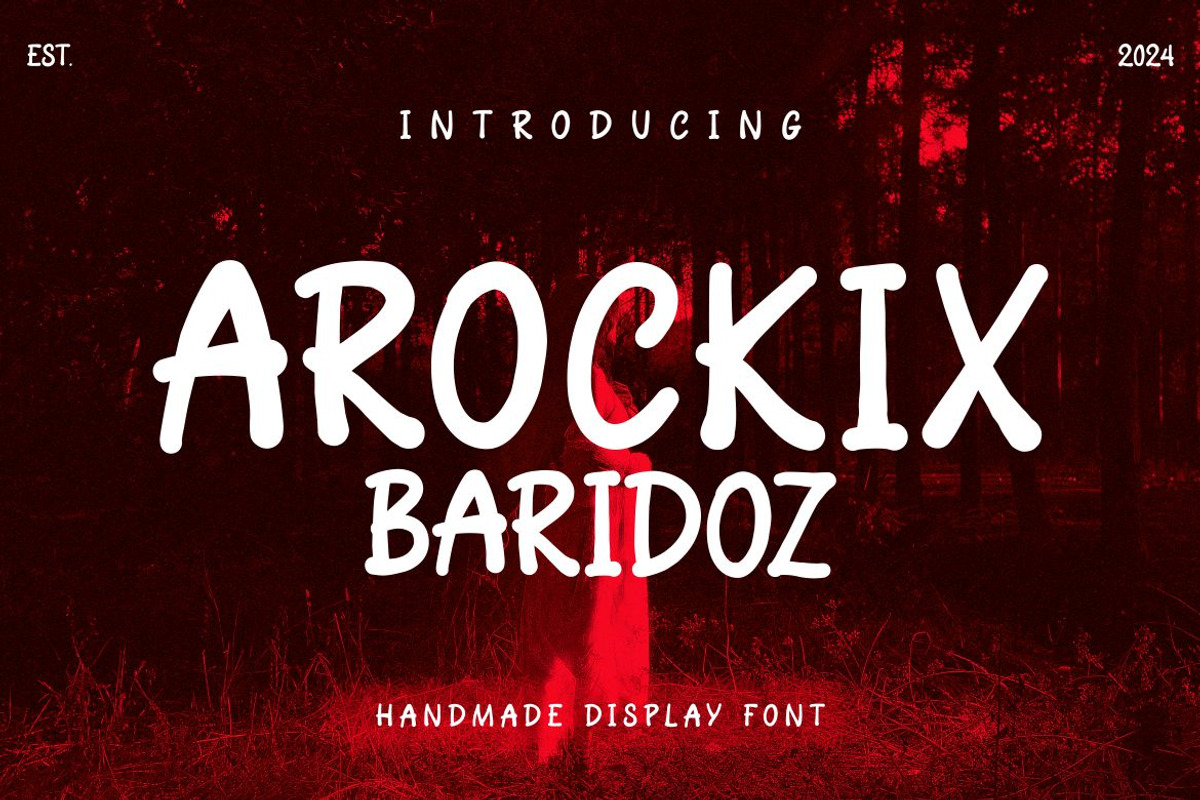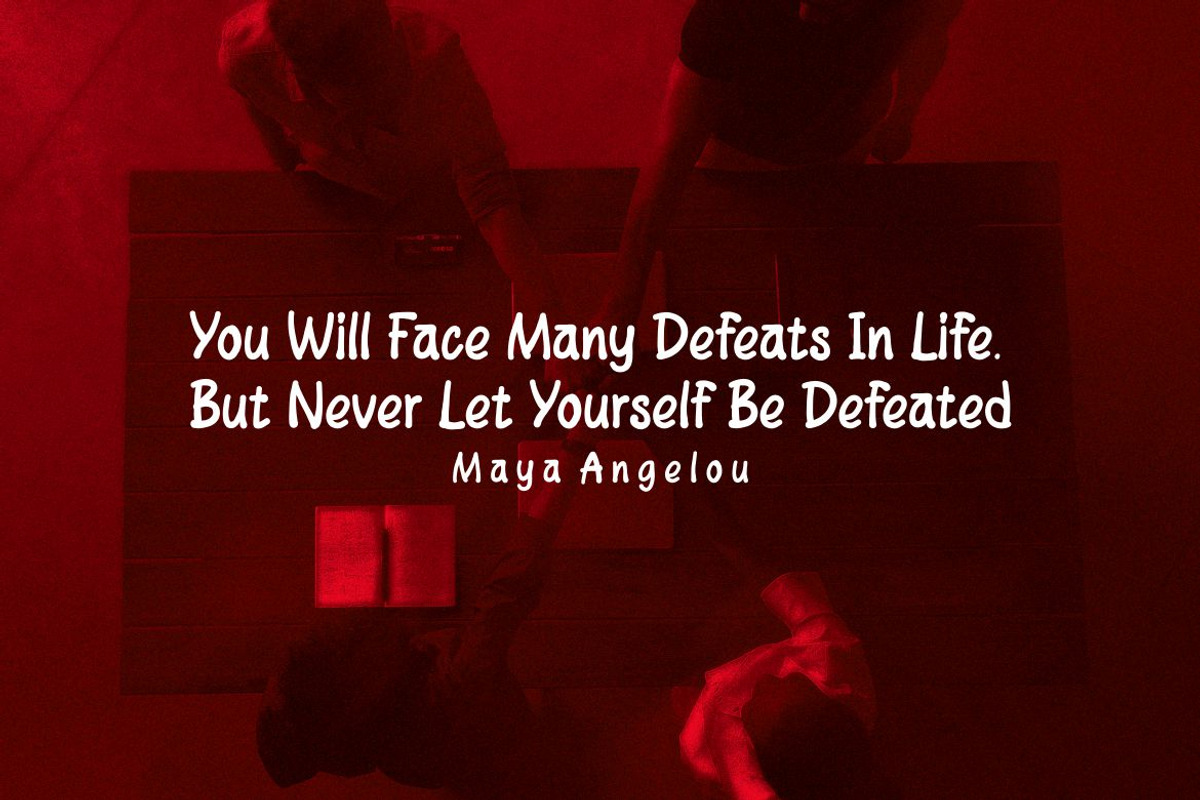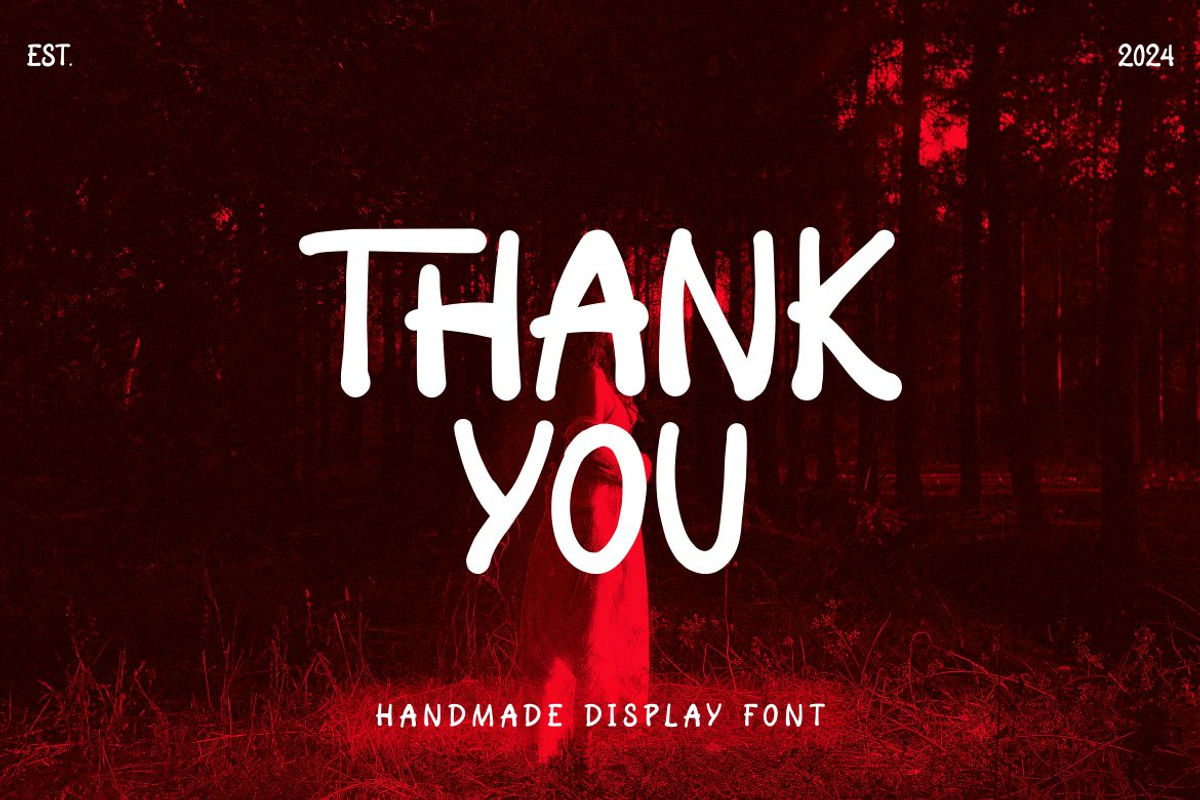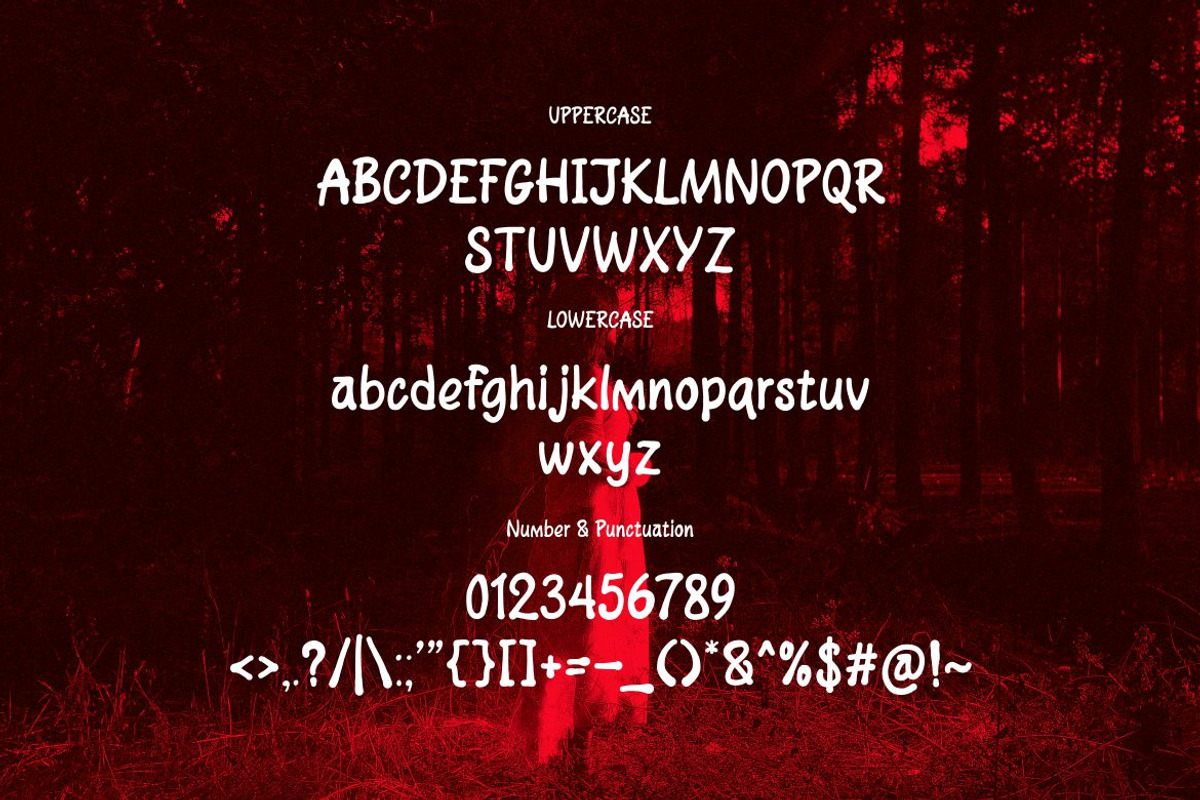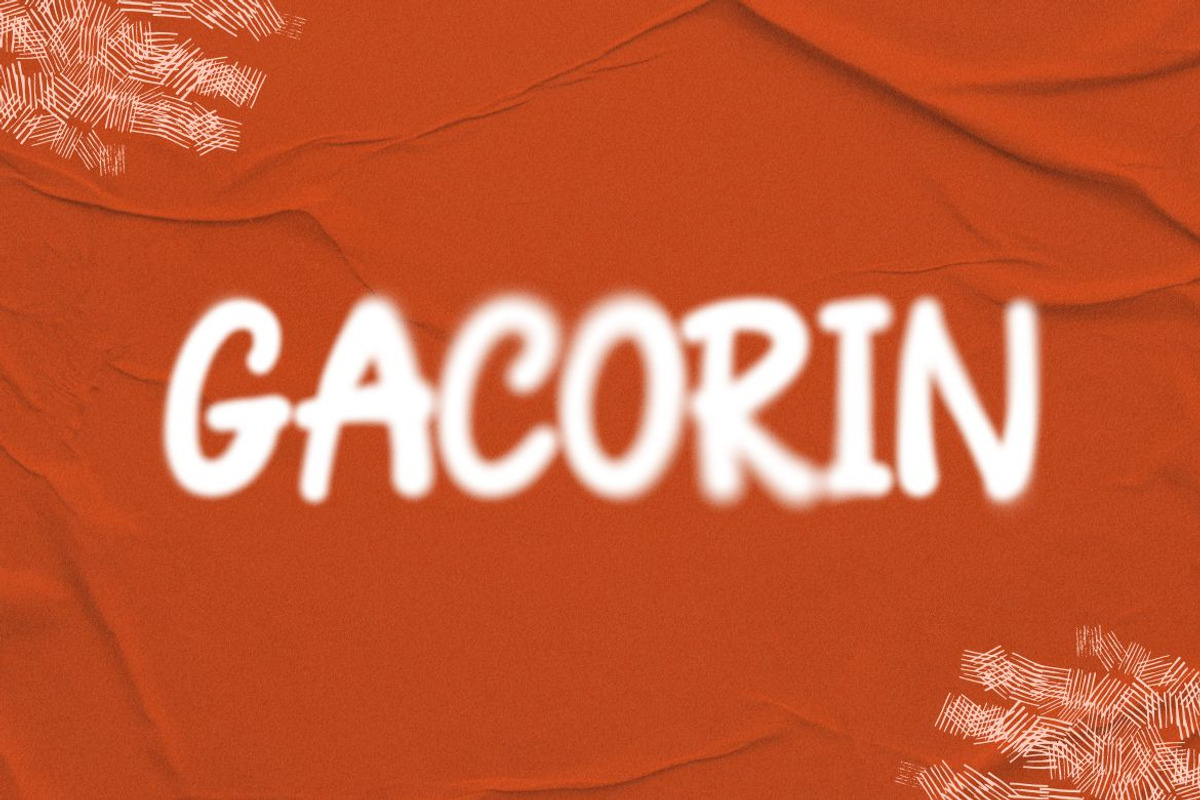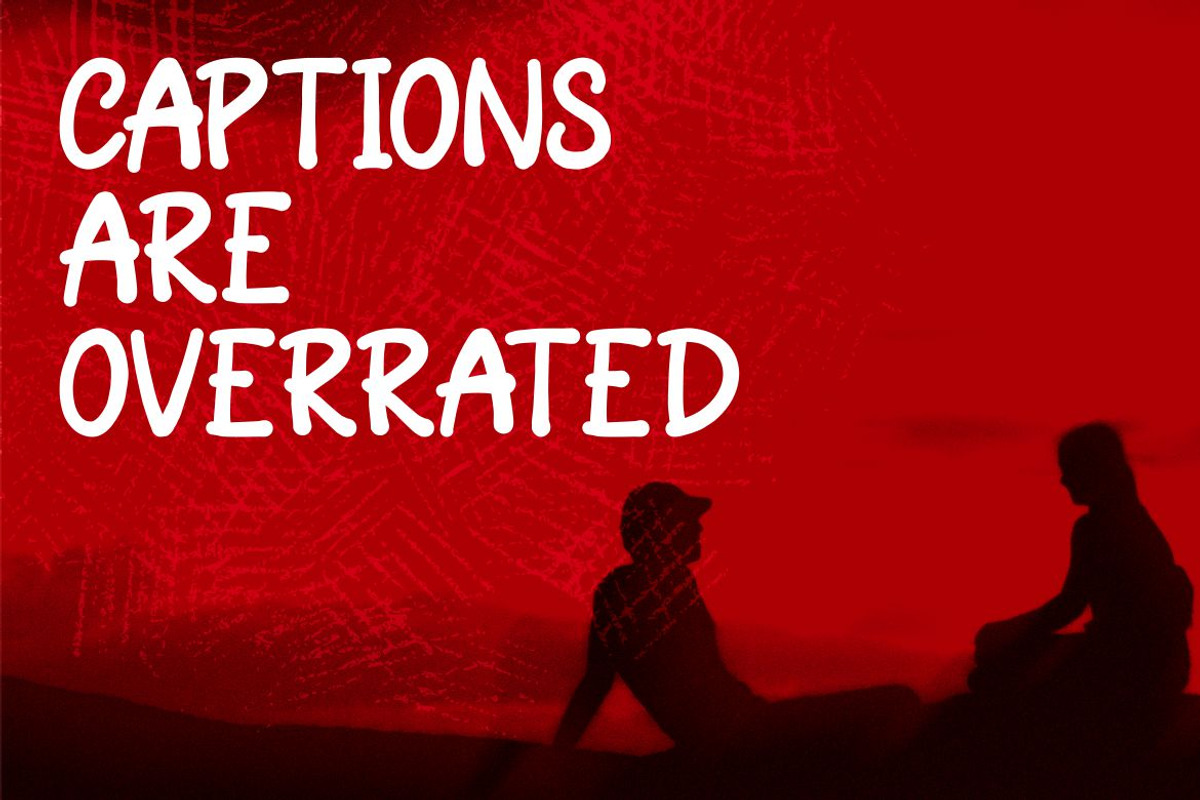
AROCKIX BARIDOZ
Introducing AROCKIX BARIDOZ , a cool and elegant modern Decorative font. Elegant font feel. This font gives you a beautiful and modern atmosphere. suitable for posters, book covers, cards, merchandise, etc.